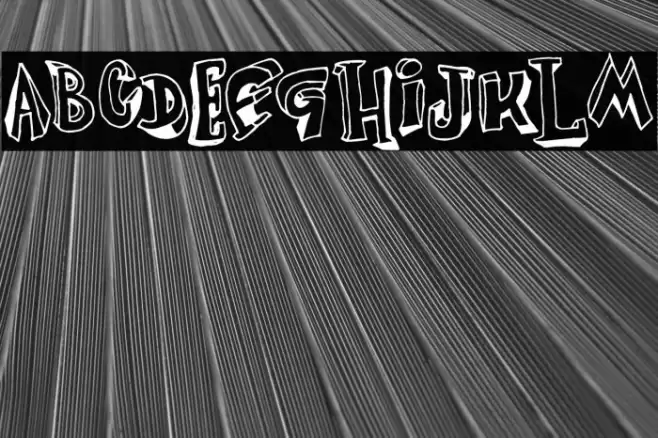
Lazy Day Font
Lazy Day Description
This font exhibits a playful and dynamic style, characterized by its bold, irregular shapes and exaggerated serifs. Each letter is uniquely crafted with a sense of movement and whimsy, giving it a hand-drawn, artistic feel. The uppercase letters are particularly expressive, with varying line thicknesses and quirky angles that add to the font's lively personality. The overall design is reminiscent of graffiti or comic book lettering, making it stand out with its bold and creative flair.
A playful, bold font with irregular shapes and a hand-drawn style from Cartoon fonts.